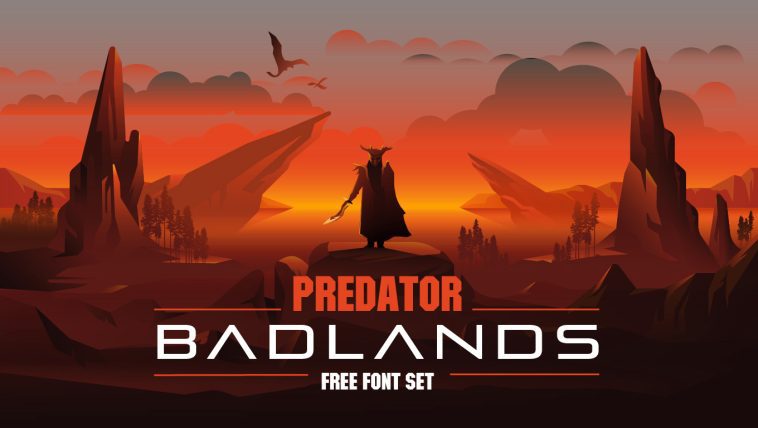
If you’re looking for that cool font from Predator Badlands (2025.) and can’t find it, you are at the right place. It is not clear who the designer is of the “Badlands” part of the title logo and there isn’t, as of yet, released any official font for fans to play with and download. However, I managed to find a very similar alternative that works really well as a substitute. The “Predator” font used in the title is actually the same typeface used in the very first Predator Movie (1987.) and it’s been released a long time ago. I have both fonts available for you to download and I managed to found some cool alternatives in case you need something that will feel similar but also unique to your own project.
Free Predator Movie Font
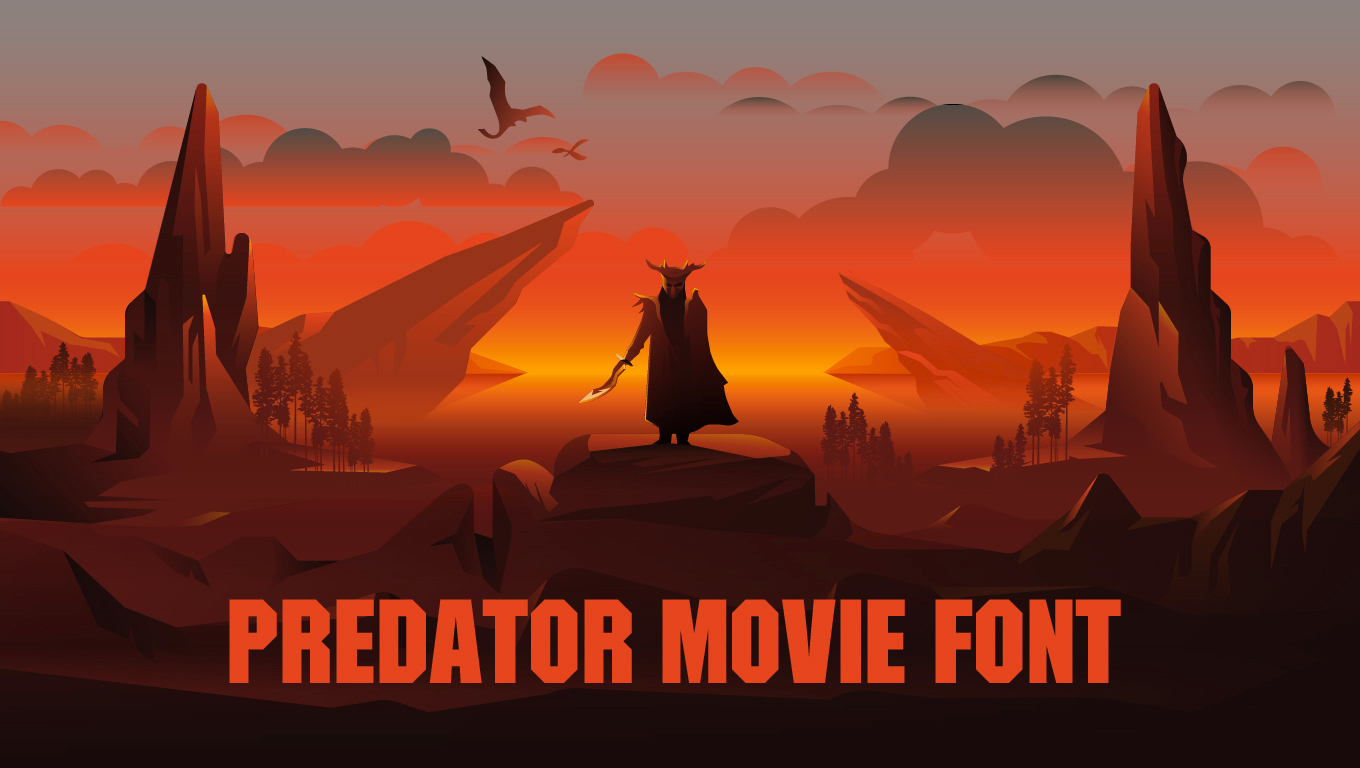
- Designer: FZ Fonts designed this font and it is intended for personal use only. The only difference between this font and the original from the Predator title logo is that this version doesn’t have a small vertical line cuts on the bottom part of the letters. There is a version that has those cuts out there, but I didn’t think that the letters were similar enough to the original and this one is almost an exact duplicate.
Free Predator Badlands Movie Font – Pirulen
Similar Predator Badlands Movie Fonts
Quciner Font is a typeface that will work well as a similar replica to the “Badlands” title. Again, not exactly the same as the original, it contains the rounded square shaped letters, just like the Pirulen Font.
Bartomes Font is also a good choice for “Badlands” title substitute typeface. The letter A has a open triangle look instead of just a minimal “up arrow” look of the original, but it feels like a right choice if you wish to imitate that futuristic look of the title logo.
Cropaso typeface is a yet another great choice. The minimalism of the letter A is present here, however the font has some rounded accents that the original doesn’t have. If that doesn’t bother you, this would be a wonderful replacement font.
Krypton typeface is my choice for the “Predator” title replica. The original isn’t stencil, but still, the first Predator movie is definitely an action military film. Stencil and military go hand in hand so I went with this look.
Union Force Font is again a stencil font, with the same angular look of the original font.
Cartel Font is obviously most modern looking replica of the Predator title, stencil again, but with more futuristic look then the rest of my choices. I can definitely see it used as a title of a Predator movie franchise.